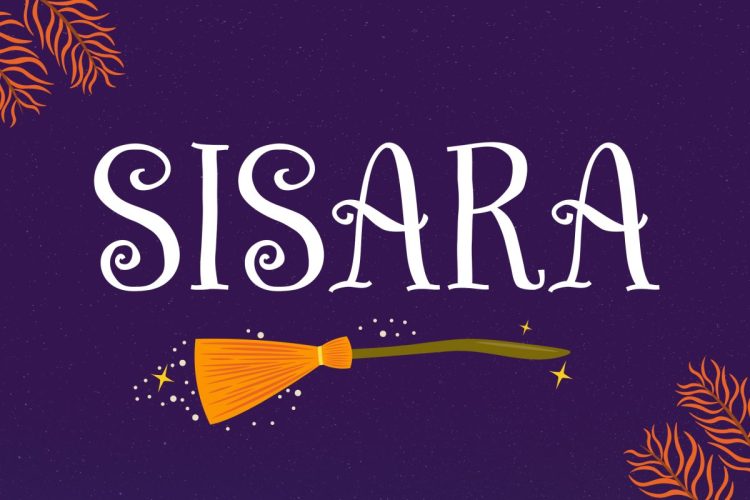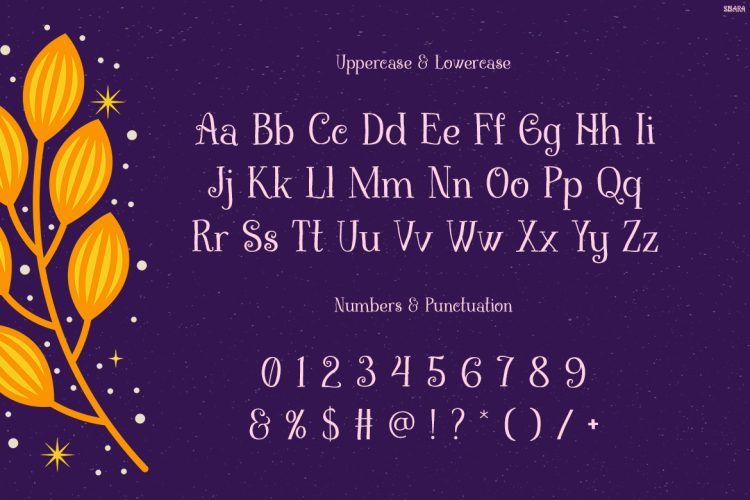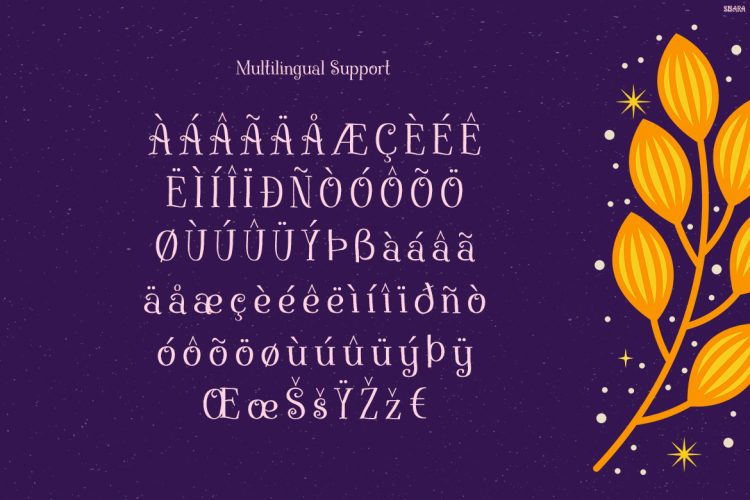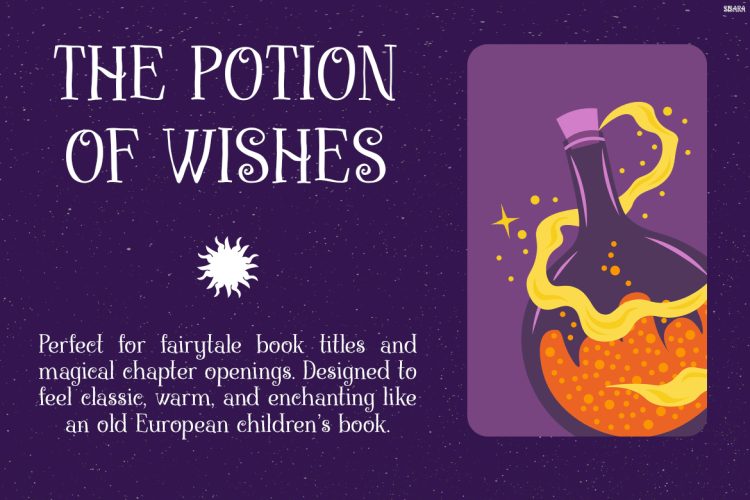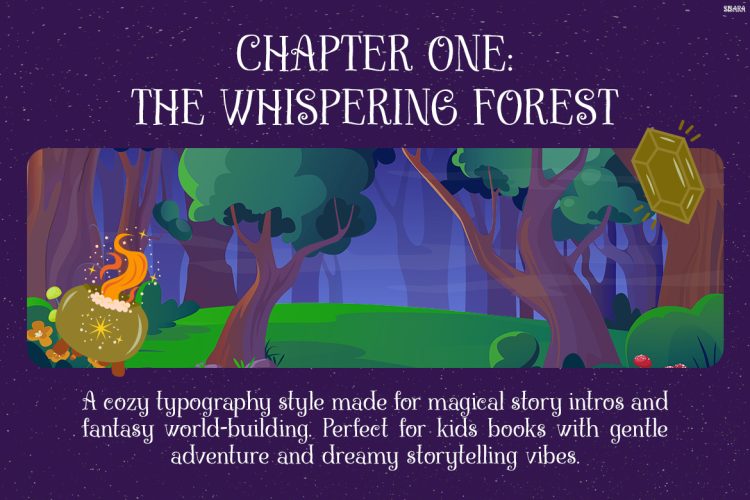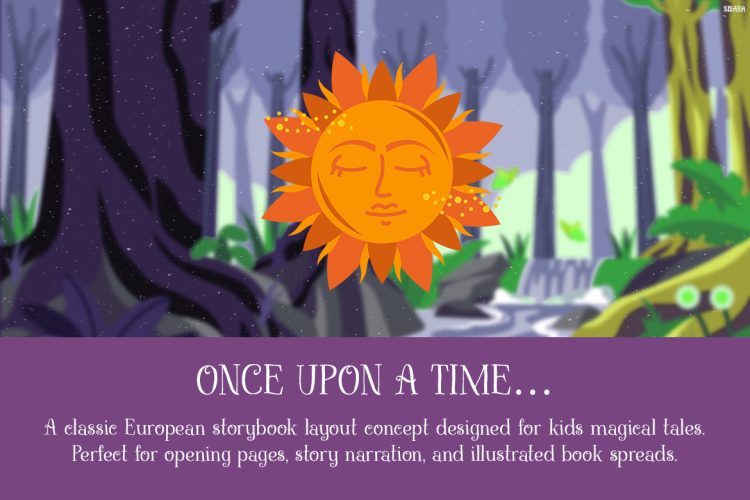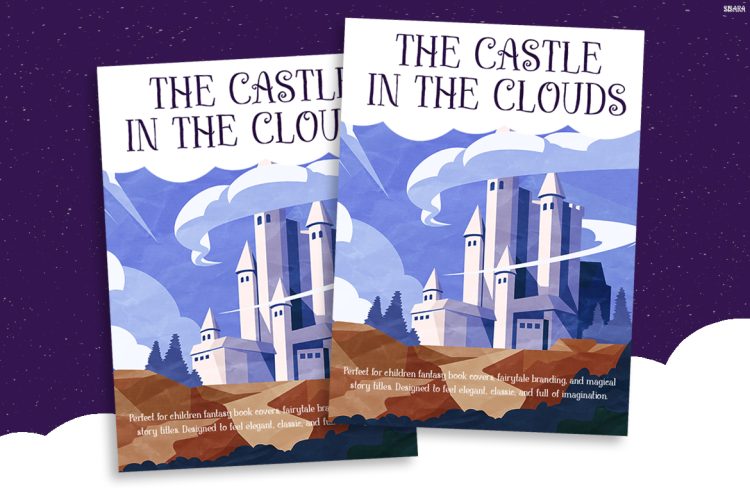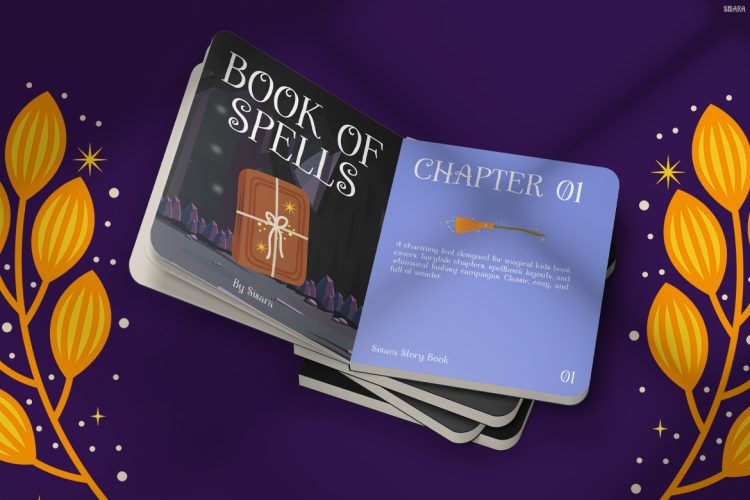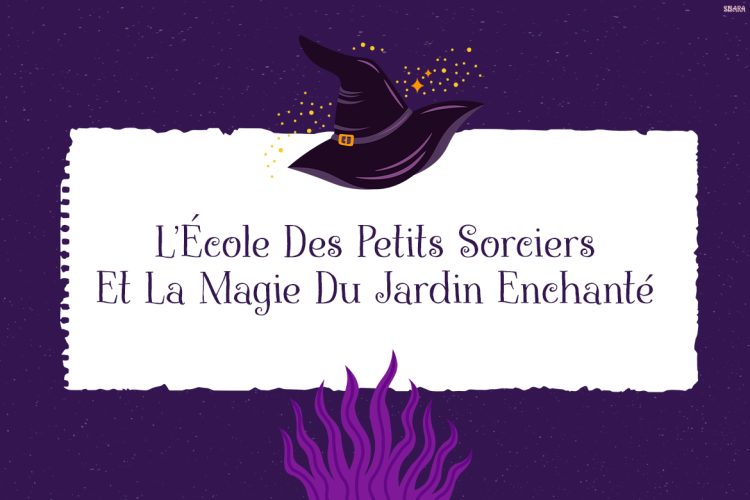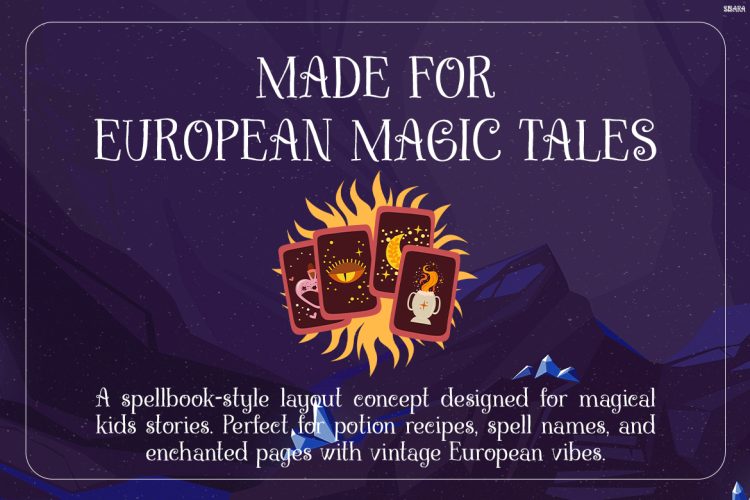
Sisara – Enchanting Fantasy Kids Font for Magical Stories & Fairytale Designs
Kids Font Sisara is a whimsical display font inspired by magical storybooks, fantasy adventures, and enchanting fairytales. Designed with elegant curves, mystical letterforms, and playful medieval charm, this font instantly creates a dreamy and imaginative atmosphere. Moreover, the unique decorative style gives every word a magical personality that feels both mysterious and friendly. Inspired by classic European fantasy tales, enchanted forests, magical potions, and fairy kingdoms, Sisara transforms simple text into captivating visual storytelling. At the same time, the font remains readable and versatile, making it perfect for both digital and print projects. In addition, Kids Font Sisara supports 67 languages, helping creators design magical experiences for audiences around the world.
Kids Font Sisara combines fantasy elegance with playful creativity. Not only does the handcrafted style create a magical fairytale aesthetic, but it also gives designs a warm and artistic touch. Furthermore, the decorative details make headlines feel immersive and full of wonder. Because of its unique fantasy-inspired appearance, Sisara works beautifully for projects that need imagination and storytelling power. Meanwhile, the balanced letter structure keeps text readable for titles, branding, and creative layouts. Therefore, this font becomes an excellent choice for creators who want typography that feels magical, adventurous, and unforgettable.
Kids Font Sisara Perfect For
- Childrenโs Books & Fantasy Stories
Perfect for fairytale books, magical story covers, bedtime stories, fantasy novels, and educational storytelling projects. In particular, the whimsical style helps bring imaginative worlds to life.
- Creative Branding & Merchandise
Great for toy packaging, fantasy-themed products, kids apparel, stickers, invitations, journals, and playful merchandise. Additionally, the magical character style makes products feel more charming and memorable.
- Designers & Content Creators
Ideal for posters, YouTube thumbnails, social media graphics, game titles, party decorations, magical events, and creative typography projects. Moreover, the font helps every design feel enchanting and expressive.
Bring Magic Into Every Design
Kids Font Sisara is more than just a decorative typeface. Instead, it is a creative tool that fills your projects with fantasy, wonder, and storytelling charm. Whether you are designing magical branding, fantasy content, or playful childrenโs visuals, this font helps every idea feel more alive and immersive. Most importantly, Sisara gives your typography a unique magical identity that instantly captures attention. So, add this enchanting fantasy font to your collection today and turn every design into a fairytale adventure.